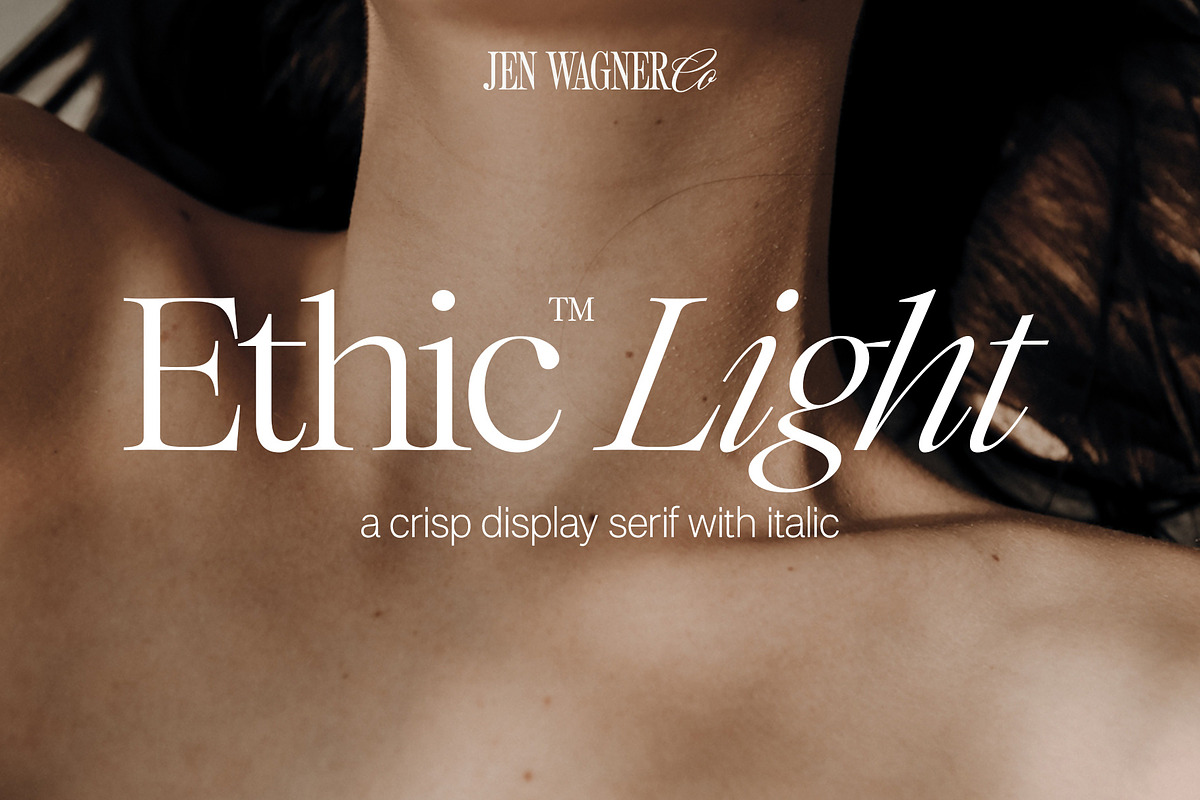
Say hello to Ethic Serif Light, a beautifully crafted serif typeface that thrives on being the center of attention. This classic and refined serif font is expertly designed to elevate your large-scale headers, impactful text moments, and elegant quotes. Ethic Serif Light combines timeless sophistication with modern flair, making it an exceptional choice for any project that demands a luxurious and polished typographic presence.
Design Excellence: Contrast, Curves, and Italics
Ethic Serif Light captivates with its striking contrast between thick and thin strokes, creating a dynamic and visually engaging rhythm that draws the eye immediately. Its organic curves soften the overall appearance, adding warmth and approachability while maintaining a high level of refinement. Complementing these features are the sharp, meticulously crafted italics that inject expressiveness and style, making Ethic Serif Light a phenomenal go-to for luxe branding and type-focused projects.
Perfect Pairing with Neue Swiss
One of the most compelling reasons to choose Ethic Serif Light is how well it pairs with other typefaces, particularly Neue Swiss. This combination creates a harmonious balance between classic serif elegance and modern sans-serif clarity, offering designers a versatile typographic toolkit. Whether you are crafting sophisticated branding, editorial layouts, or striking headlines, Ethic Serif Light and Neue Swiss together provide a powerful and stylish typographic voice.
Comprehensive Font Features and Language Support
Ethic Serif Light includes both roman and italic styles, giving designers the flexibility to create varied typographic hierarchies and emphasis within their projects. The font also supports a full range of numbers and punctuation marks, ensuring clarity and completeness in all text settings. Additionally, Ethic Serif Light offers extensive foreign language support, making it suitable for international projects and multilingual content without compromising style or legibility.
Ideal Applications for Ethic Serif Light
Ethic Serif Light excels in a variety of design contexts, including:
- Large-Scale Headers: Its bold contrast and elegant forms make it perfect for headlines that demand attention and convey sophistication.
- Luxe Branding and Identity: Use Ethic Serif Light to craft memorable logos and brand materials that communicate refinement and timeless style.
- Editorial and Print Design: Enhance magazines, books, and digital publications with typography that elevates the reading experience through clarity and elegance.
- Quotes and Display Text: Its expressive italics and graceful curves make it ideal for highlighting important text and adding visual interest.
Why Choose Ethic Serif Light?
Choosing Ethic Serif Light means selecting a typeface that not only commands attention but also offers versatility and sophistication. Its design excellence ensures it stands out wherever it appears, while its comprehensive features and language support make it practical for a wide range of professional uses. Whether you are developing a high-end brand identity or designing editorial content, Ethic Serif Light provides the perfect blend of beauty and functionality.